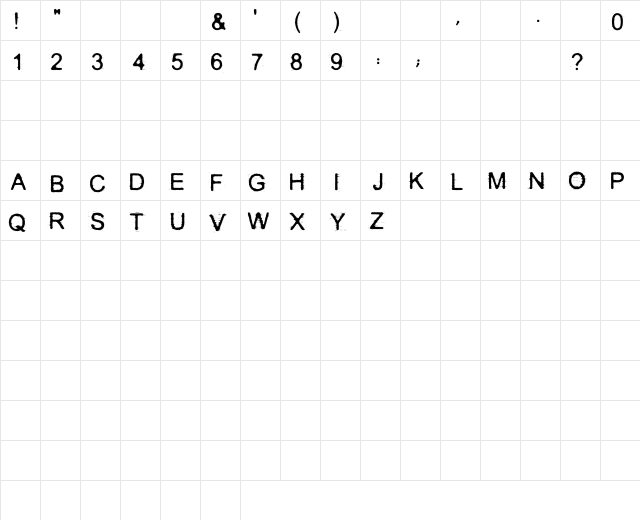
DECOST Regular Font Preview
DECOST Regular
DECOST Regular Font Details
Design Context for DECOST Typeface
DECOST is a composed and adaptable typeface that performs quietly and consistently across a wide range of design contexts.